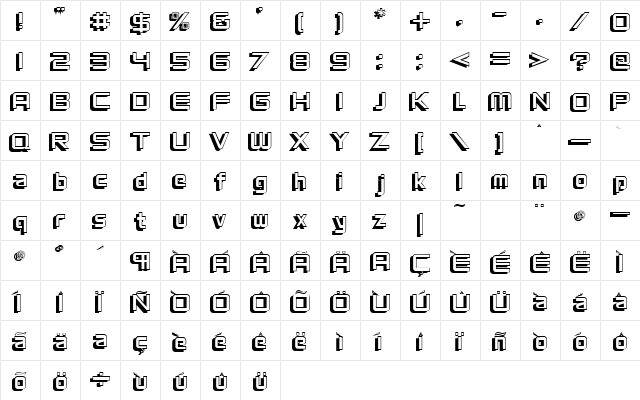
VentureShadow Regular
Design Context for VentureShadow Typeface
VentureShadow is built around its visual character rather than neutral utility — its distinctive forms are designed to make an impression at display sizes.
Font Pairing: Pair with a clean neutral sans-serif for body copy to let VentureShadow's character lead without overwhelming the composition.
Pro Tip: Treat VentureShadow as the centrepiece of your typographic hierarchy. One strong heading set in a decorative face can carry an entire layout.